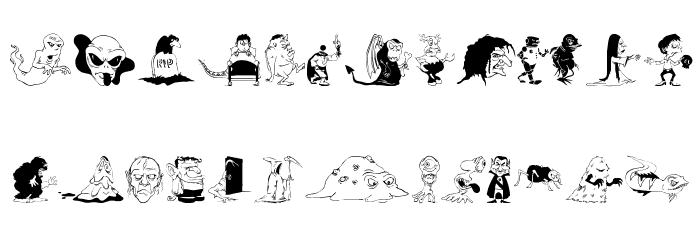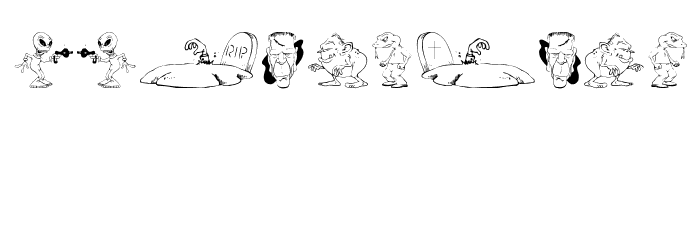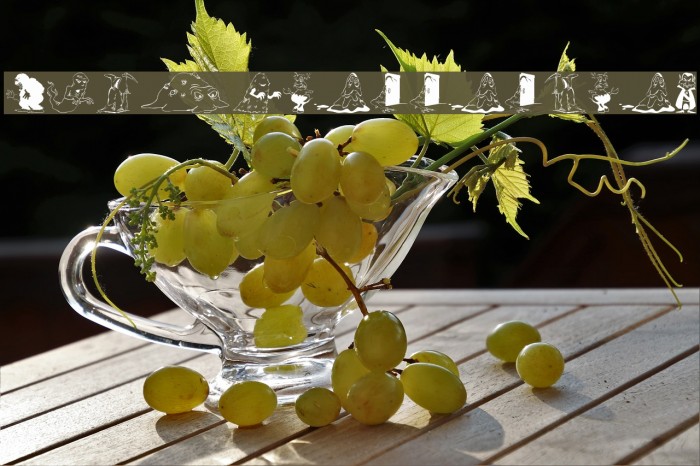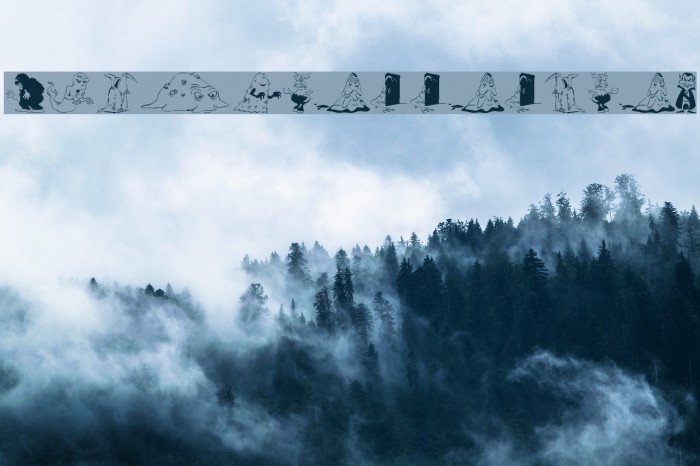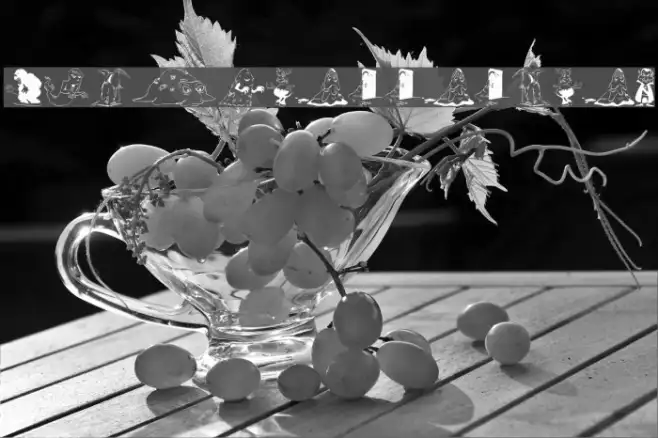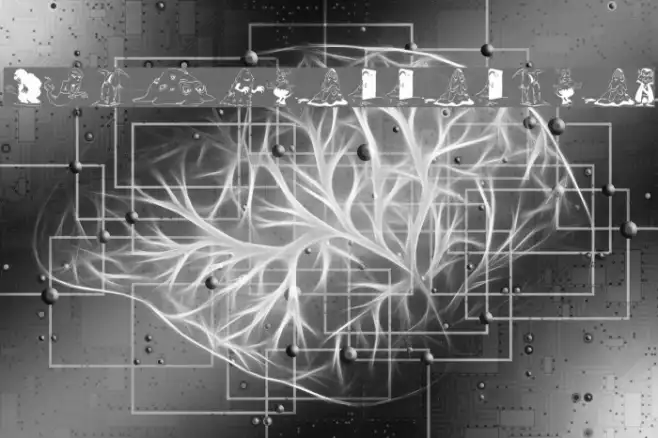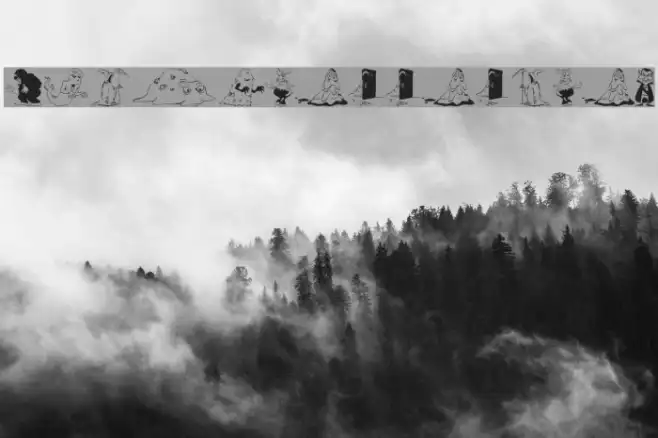
NastyHorrorShow Font
This font is a playful and spooky collection of characters, each designed with a horror theme. The characters are cartoonish and exaggerated, featuring classic horror elements like ghosts, monsters, and ghouls. Each letter and symbol is represented by a unique character, adding a whimsical and eerie touch. The style is highly decorative, with intricate details that make each character distinct and engaging. The font is perfect for Halloween-themed projects or any design that requires a touch of horror and humor.
A whimsical and spooky horror-themed decorative font.
- Proposed Projects: Ideal for Halloween invitations, horror-themed posters, children's spooky storybooks, and themed party decorations.
- Use Case: Logos, Posters, Invitations